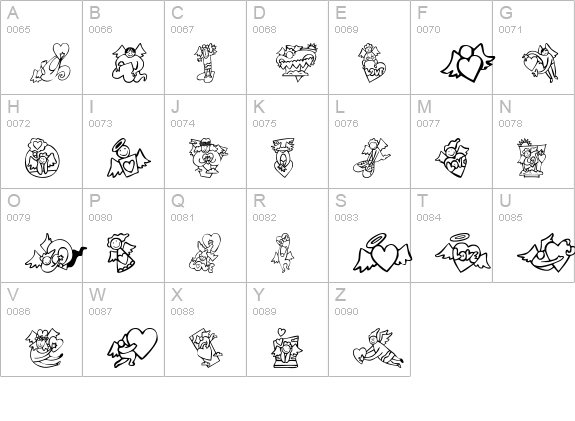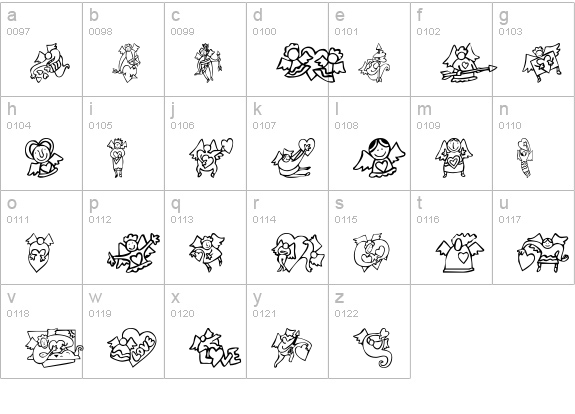
KR Love Angels Font Details
The KR Love Angels font is a whimsical and charming typeface that exudes a sense of playfulness and romance. With its delicate curves and graceful lines, this font is perfect for adding a touch of sweetness to any project. Whether you're designing invitations, greeting cards, or love notes, the KR Love Angels font will bring a sense of warmth and affection to your creations. Best of all, this lovely font is available for free download at FontsMarket.com. Simply visit the website and add this delightful typeface to your collection without any cost. Embrace the love and beauty of the KR Love Angels font in your designs today!